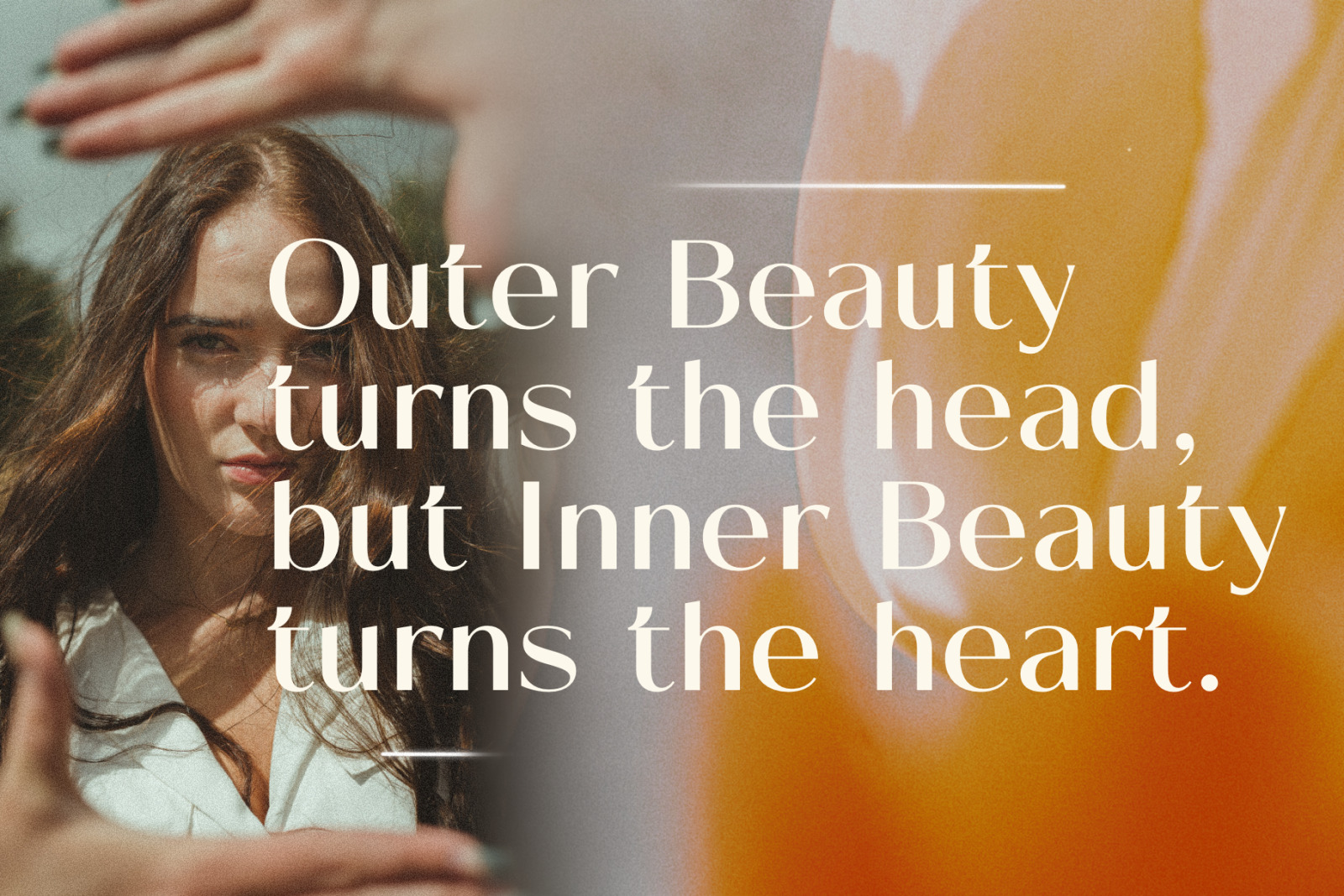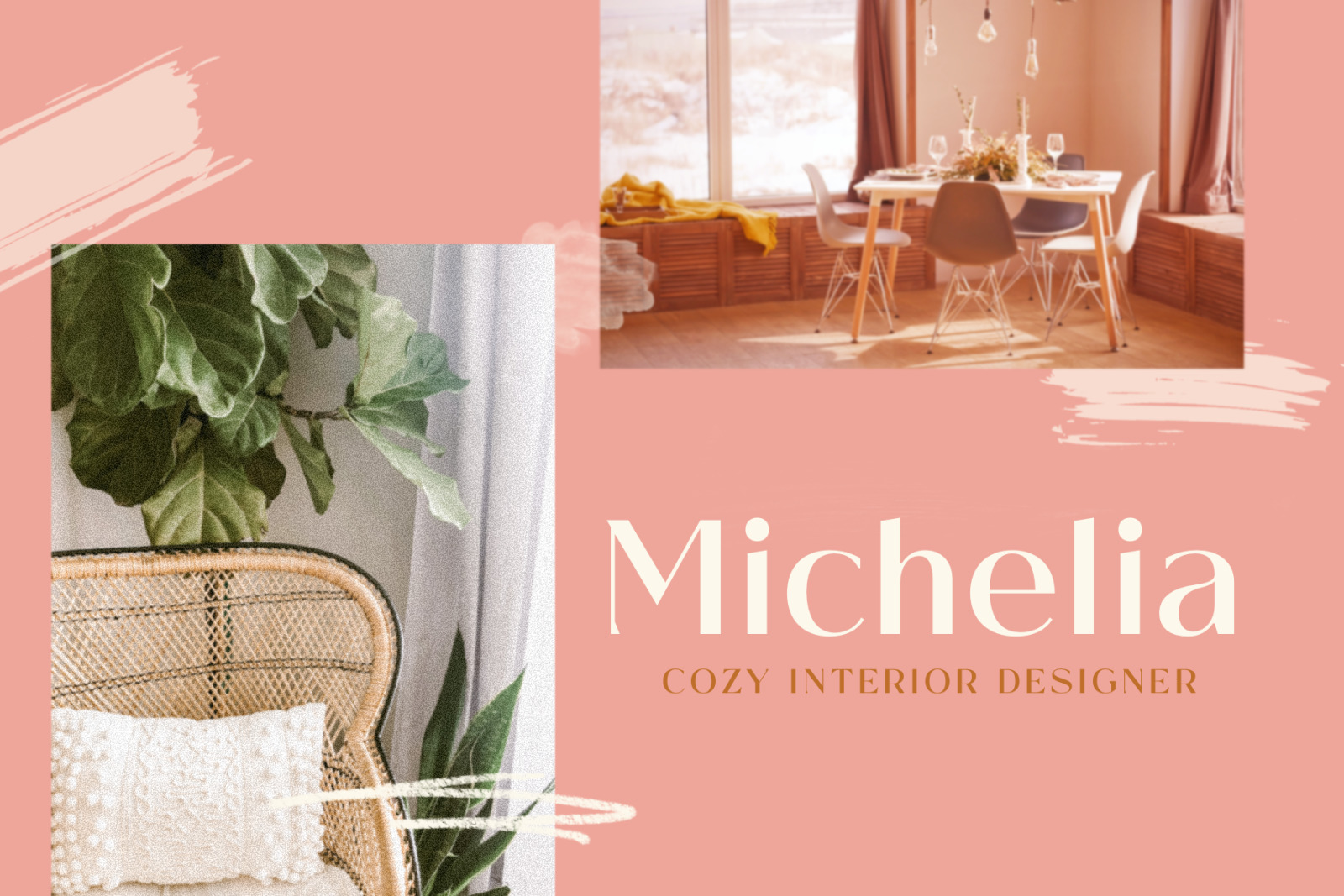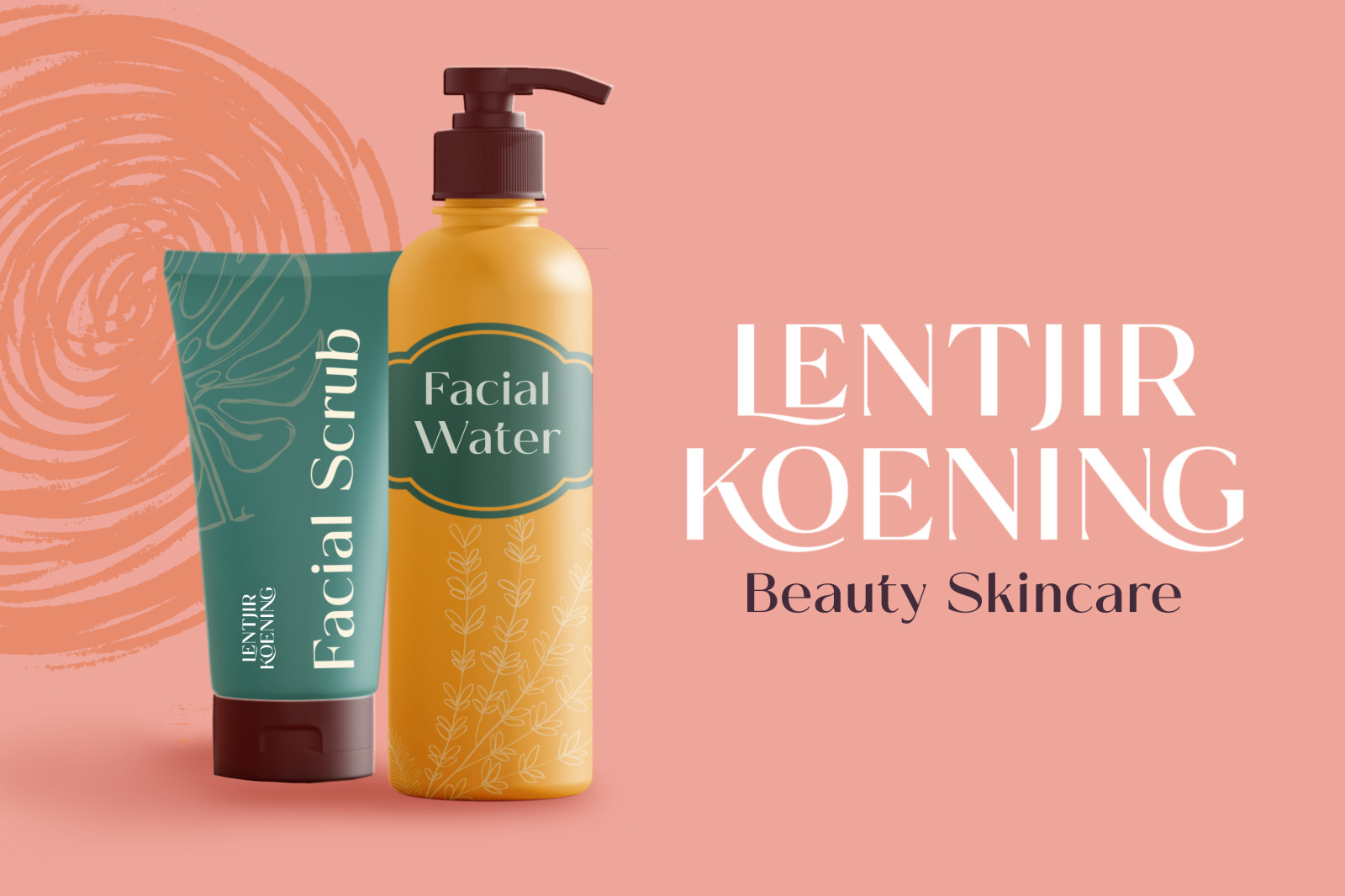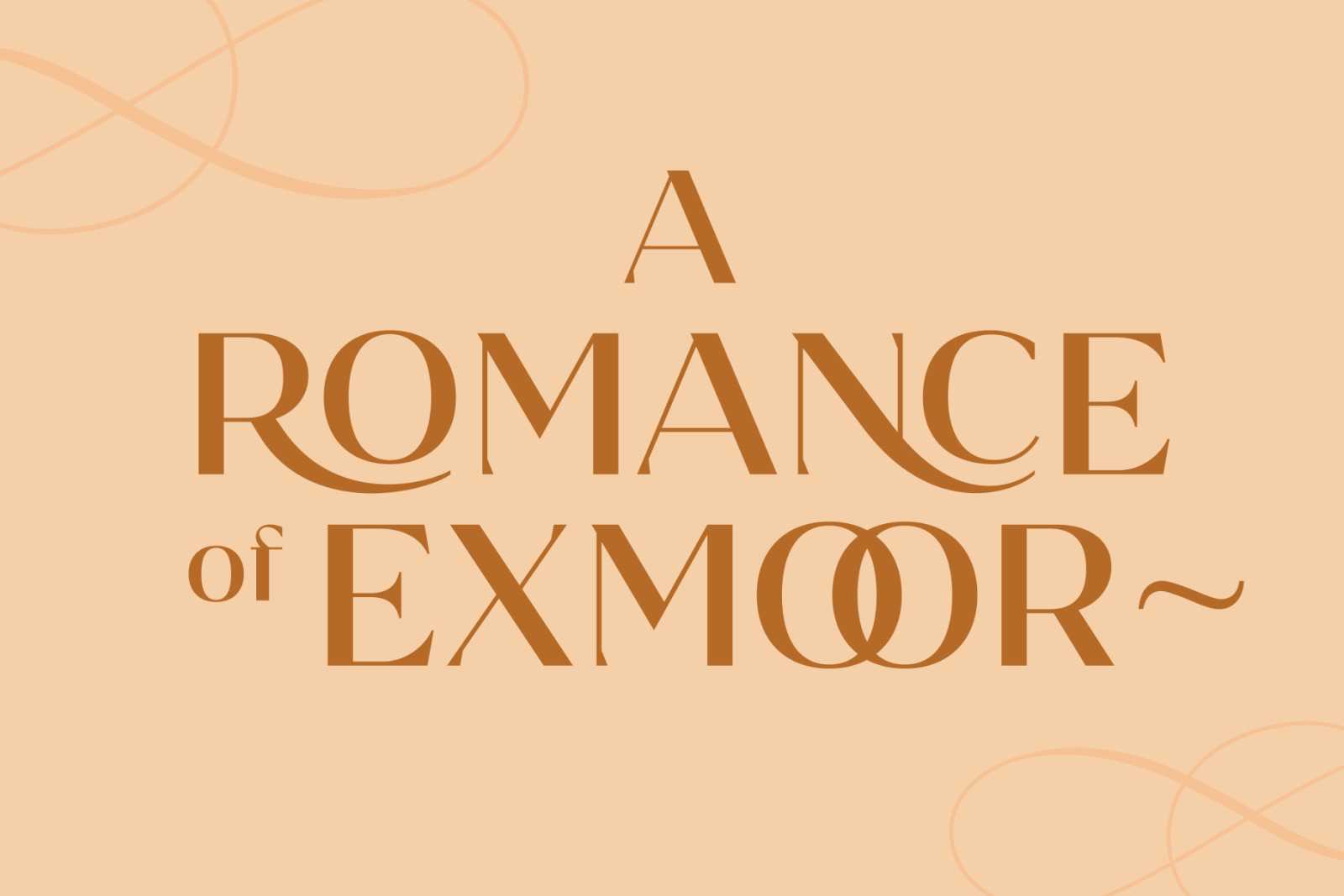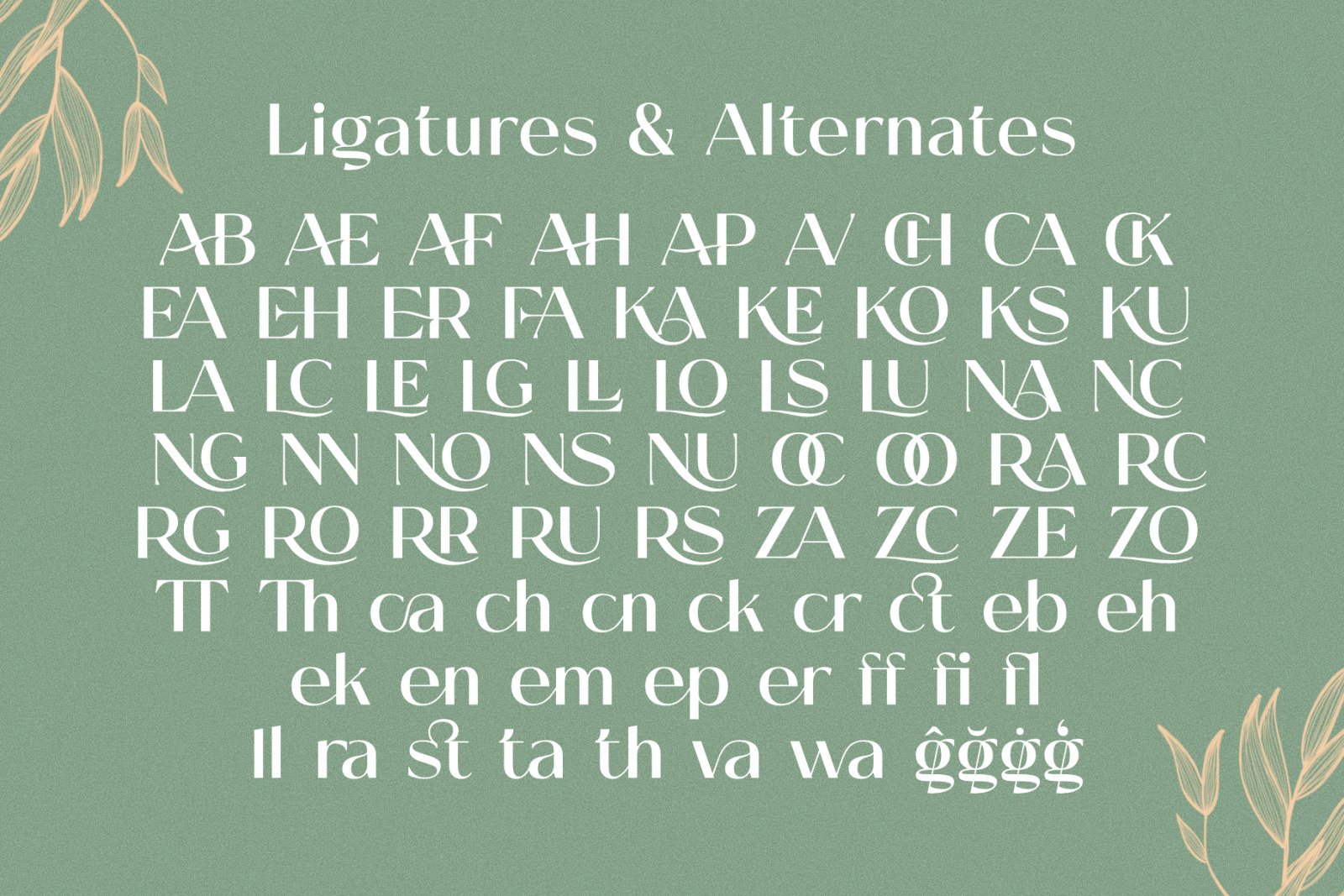
Girisuba Font
Girisuba is a beautiful modern sans combined with a hint of serif. High contrast is the main feature of the Girisuba font. Its characteristics are smooth and geometric while having a stylish, modern and neutral appearance to blend with any project.
Comes with ornamental stylistic sets, bunch of ligatures and contains over 450 glyphs for multi-language support. Giribusa is perfect for packaging designs, headlines, posters, logotypes and many other typographic purposes.